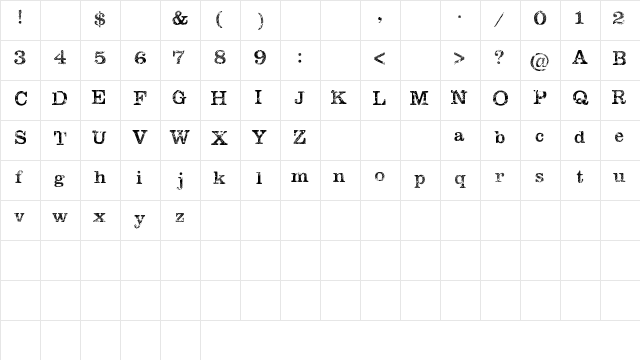
Megeon Grunge Regular
Design Context for Megeon Grunge Typeface
Megeon Grunge embraces imperfection — its rough, textured character adds raw authenticity to designs that want to feel lived-in and unconventional.
Suited to punk-influenced zines, underground music branding, streetwear, and raw, anti-corporate design.
Pro Tip: Pair Megeon Grunge with intentionally raw or lo-fi design elements. Fighting against it with overly polished surroundings will undermine its personality.